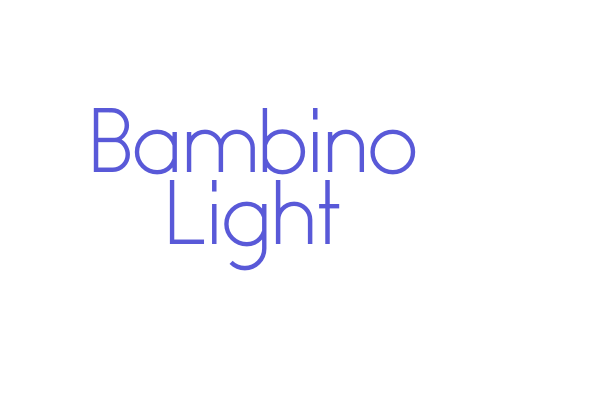
Bambino Light is a sleek and modern sans-serif font designed by Milos Mitrovic. With a clean and minimalistic style, this font is perfect for creating a contemporary and sophisticated look. Ideal for branding, editorial design, and digital projects, Bambino Light stands out for its simplicity and versatility.
Font Name: Bambino Light
Designer: Milos Mitrovic
Font Family: Bambino-Light
Weight: Light